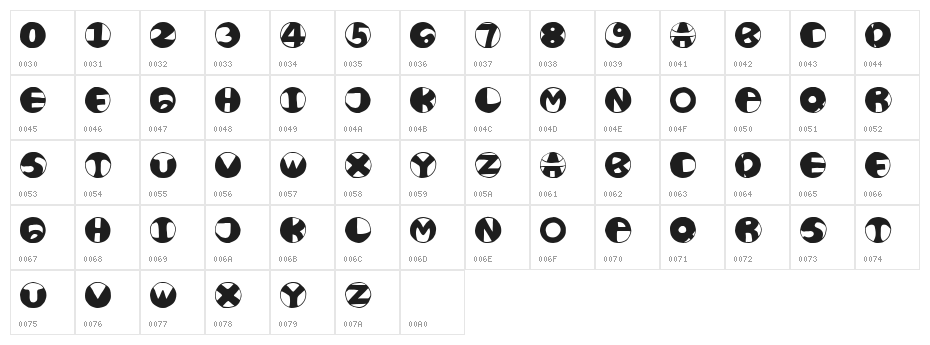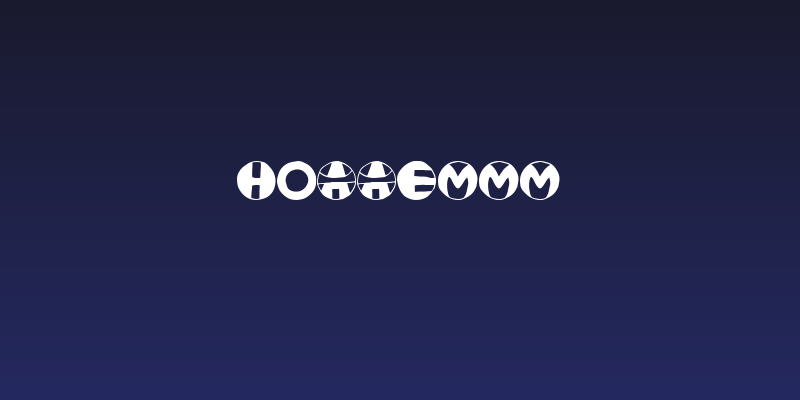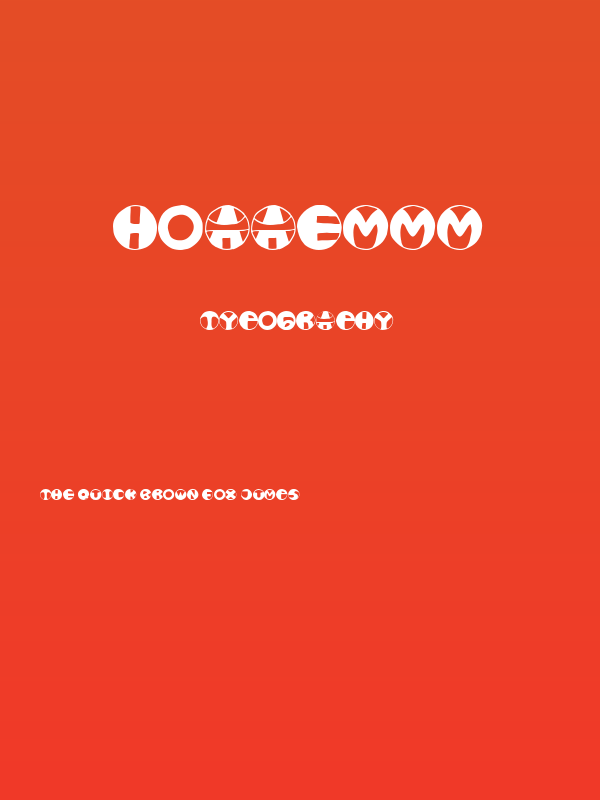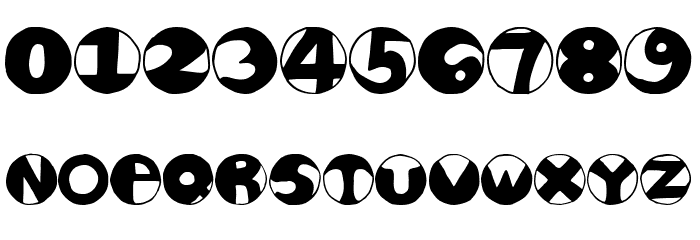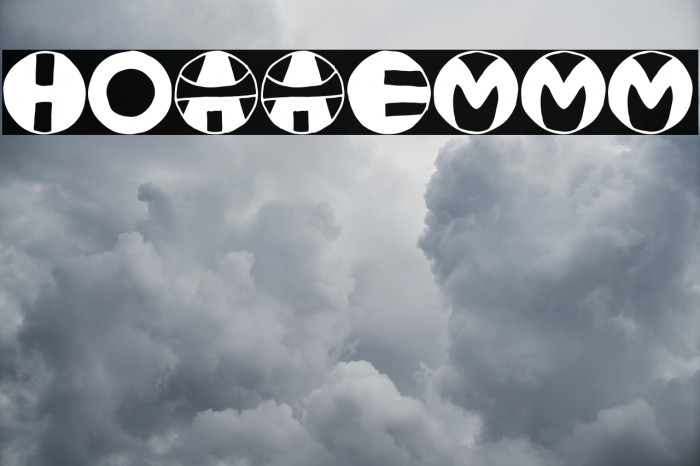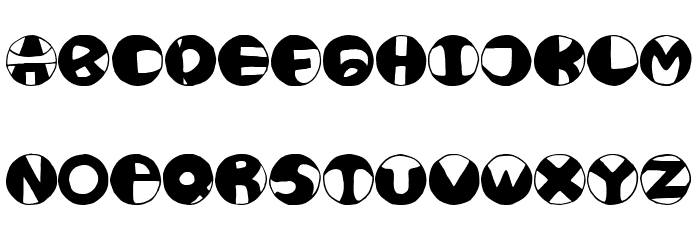
HOAAEMMM Font
HOAAEMMM Description
This font features a unique and bold design where each character is encapsulated within a circle, creating a striking visual impact. The letters and numbers are crafted with a high contrast between thick and thin strokes, giving them a modern and artistic flair. The geometric shapes and the interplay of positive and negative space make it stand out, ideal for creative and eye-catching designs. The font maintains a consistent circular form across all characters, providing a cohesive and unified look. Its artistic style makes it suitable for projects that require a distinctive and memorable typeface.
| Proposed Projects | Ideal for logos, posters, album covers, and modern art projects. |